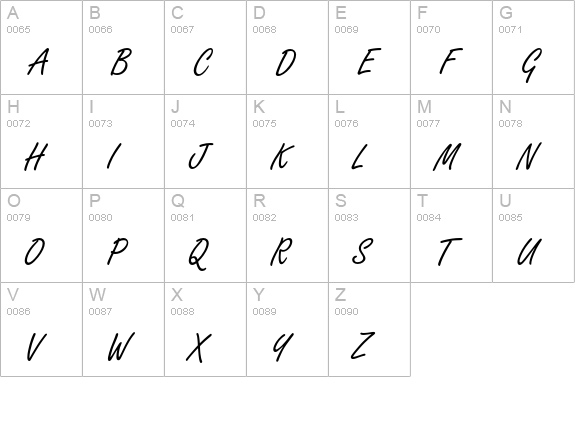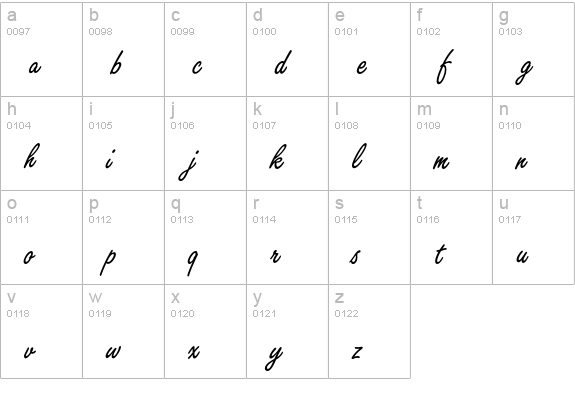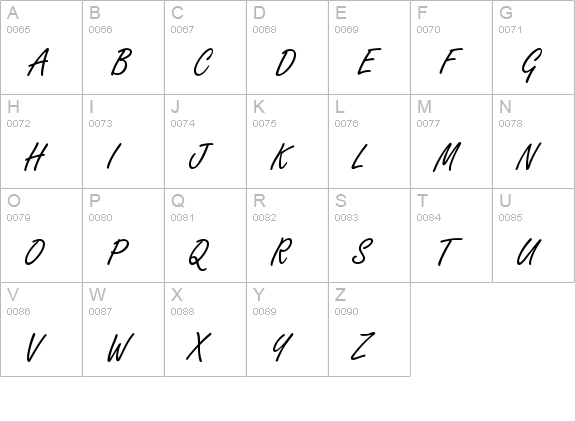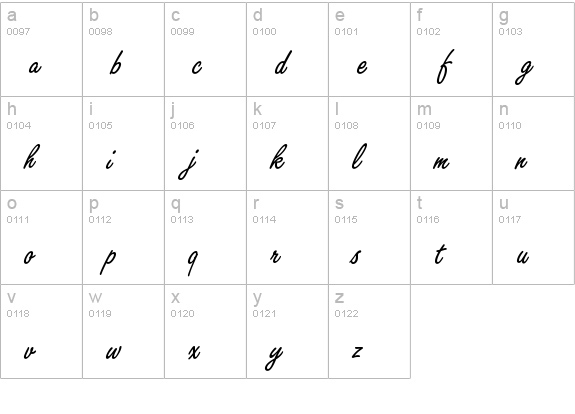
FreestyleScriptEF-RegAlt Font Details
FreestyleScriptEF-RegAlt font is a visually pleasing and versatile typeface that exudes creativity and elegance. Its flowing and effortless curves give a sense of fluidity and dynamism to any text it graces. The alternate version adds a unique twist to the traditional script font, making it stand out from the crowd. One of the best features of FreestyleScriptEF-RegAlt font is that it is completely free to download at FontsMarket.com. This means that you can easily access this beautiful font and use it for any personal or commercial projects without any cost. Whether you are designing invitations, posters, or branding materials, FreestyleScriptEF-RegAlt font will add a touch of sophistication and style to your creations. Experience the beauty and versatility of FreestyleScriptEF-RegAlt font today by downloading it for free at FontsMarket.com and unlock a world of creative possibilities for your designs.